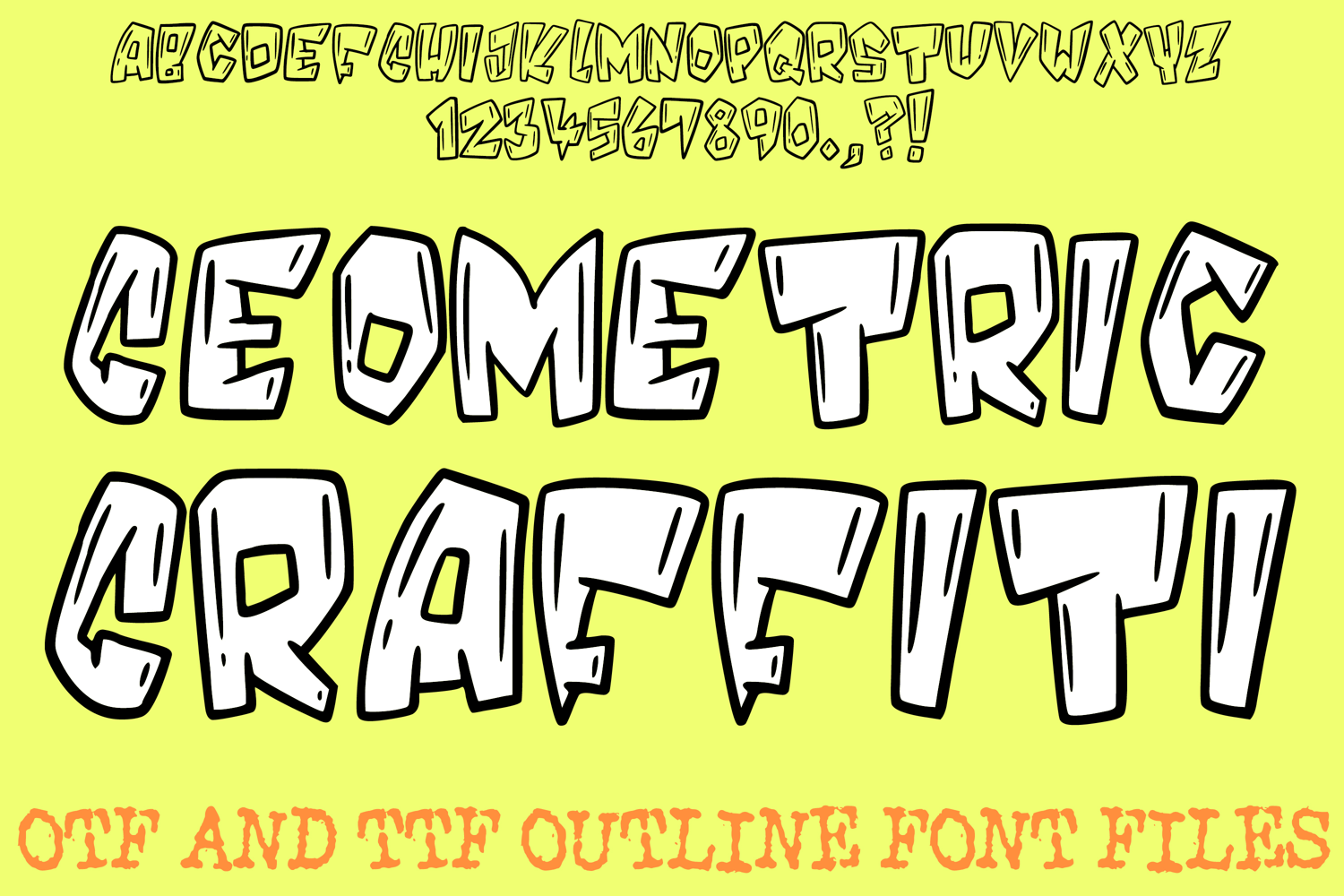
The Geometric Graffiti Font is a bold and structured display typeface that blends urban street art with rigid, blocky geometry. Featuring thick, hand-drawn outlines and sharp, chiseled angles, this font is an ideal choice for designers creating high-impact posters, gaming graphics, skate-brand identity, and comic book headings.
The design captures a rugged, architectural energy where each character is defined by straight edges and "rock-cut" terminals. Subtle interior detail lines provide a sense of depth and texture, giving the alphabet a tactile, three-dimensional feel. Whether you are building an identity for an esports team or designing vibrant streetwear apparel, this font delivers a gritty yet playful aesthetic that commands attention.
Chiseled Geometric Forms: The sharp corners and blocky construction provide a sturdy, structural presence that feels modern and powerful.
Hand-Drawn Outline Style: Bold, heavy borders ensure that your text "pops" against any background, making it perfect for high-contrast digital and print layouts.
Urban Comic Aesthetic: Combines the rebellion of street graffiti with the clean legibility of a cartoon display font.
Structural Detail Lines: Minimalist interior strokes add character and a "work-in-progress" sketch vibe that enhances the handcrafted feel.